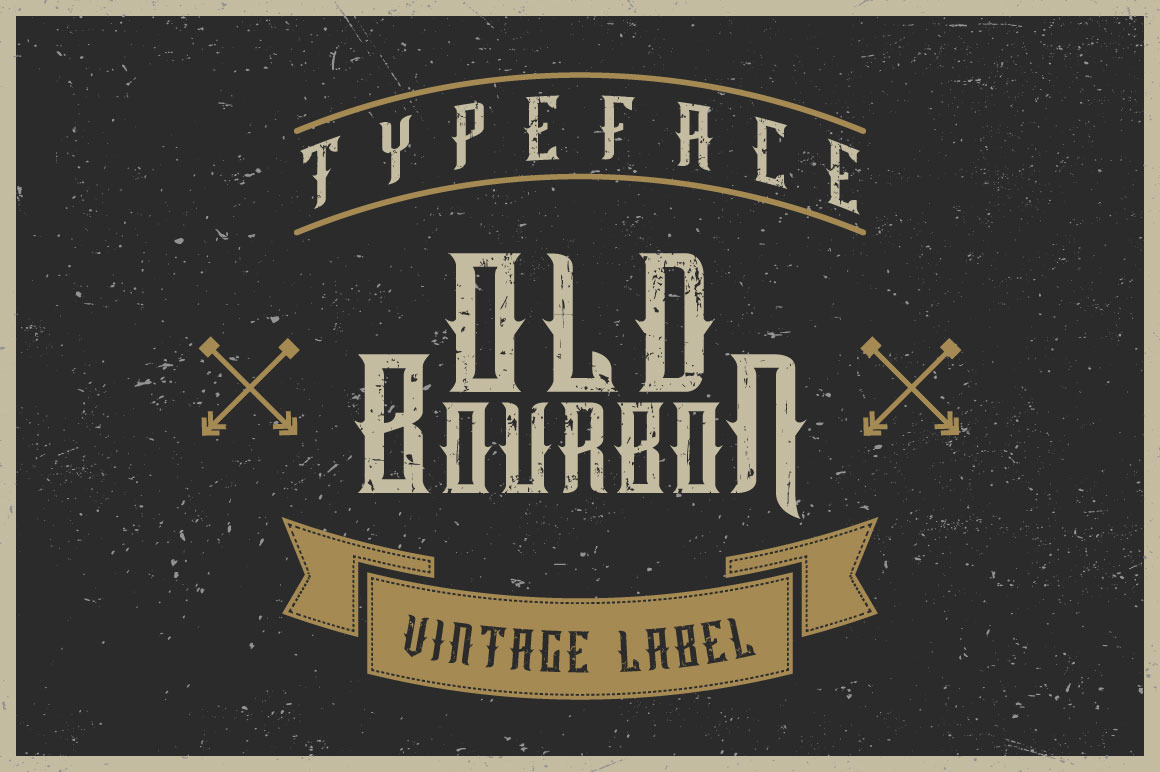
Old Bourbon label font
Here is a vintage look label typeface named "Old Bourbon". It's made in a vintage label style. Font is perfect for any labels design of absinthe, brandy, whiskey, rum, gin, beer etc.